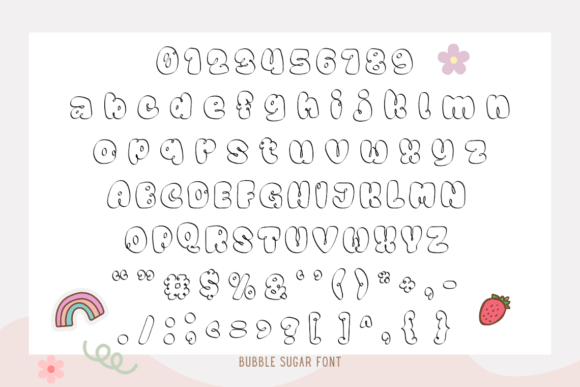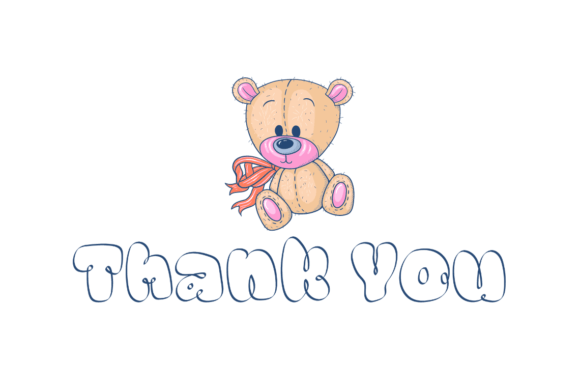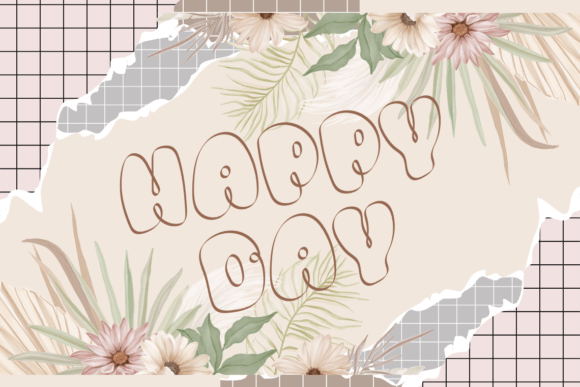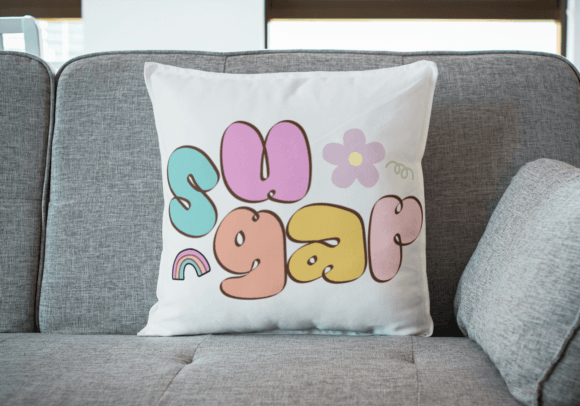
Bubble Sugar Font: Add a Touch of Whimsy to Your Designs
Have you ever found yourself rummaging through your craft supplies, searching for the perfect font to add a personal touch to your handmade cards or artwork? We’ve all been there – the feeling of excitement and creativity as we browse through fonts, hoping to find the perfect match. Today, we’re thrilled to introduce you to a font that’s sure to bring a smile to your face: Bubble Sugar Font!
This delightful handwritten font is designed to add a playful touch to any project, making it perfect for creating paper notes, worksheets, and other materials that need a fun and whimsical vibe. With its sweet-themed alphabet graphics, Bubble Sugar Font is a valuable addition to any designer’s toolkit, allowing you to let your creativity bubble with ease.
Bubble Sugar Font Key Features
- Font Family: Bubble Sugar Font is a sans-serif font family designed for digital use.
- Character Set: Includes a comprehensive set of characters, including uppercase and lowercase letters, numbers, punctuation, and special characters.
- Unique Characteristics: Features a playful, rounded design with a bubble-like aesthetic, making it suitable for use in digital media, such as social media, websites, and mobile apps.
Bubble Sugar Font Review
I recently had the chance to work with the Bubble Sugar Font, and I must say it’s a delightful addition to any design project. ✨ Here are some of the things that work well:
- Playful and whimsical feel: The Bubble Sugar Font is perfect for creating a sense of playfulness and fun in your designs.
- Variety of styles: The font includes multiple styles, from bold and playful to elegant and refined, making it suitable for a wide range of projects.
- High-quality vector graphics: The font is built using high-quality vector graphics, ensuring crisp and clear rendering at any size.
- Not ideal for formal or professional projects: While the font is perfect for playful and creative projects, it may not be the best choice for formal or professional designs.
- Limited language support: The font may not support all languages, which could be a limitation for international projects.
- May not be suitable for small text: The font’s playful nature may make it difficult to read in small text sizes.
Overall, I’m impressed with the Bubble Sugar Font’s versatility and charm. While it may not be the best choice for every project, it’s a great addition to any designer’s toolkit. With a little creativity and experimentation, you can achieve some amazing results with this font.
The Bubble Sugar Font is ideal for:
- Children’s party invitations
- Wedding stationery
- Handmade craft designs
- Use it in conjunction with pastel colors for a soft, whimsical look
- Experiment with different font sizes and styles to add
For optimal readability, we recommend using the Bubble Sugar Font at a minimum size of 12 points (on-screen) or 10 points (print). A line height of 1.2 to 1.5 times the font size is also recommended to ensure clear text flow and readability.